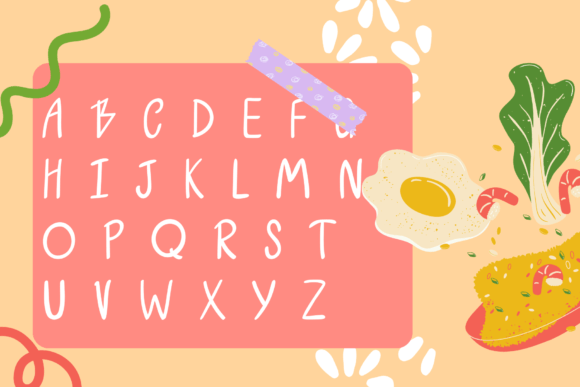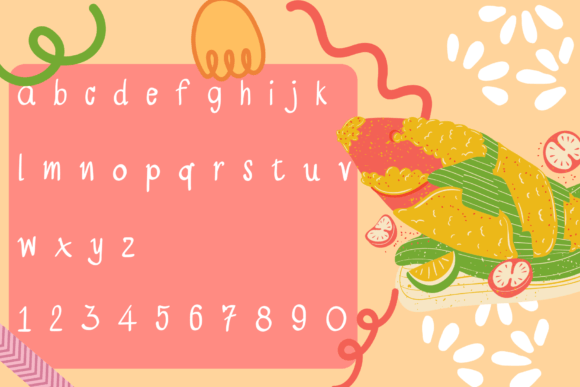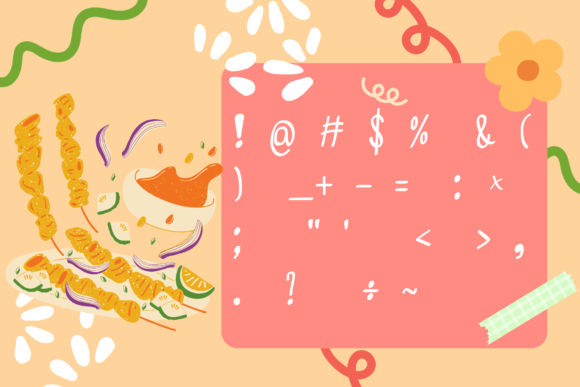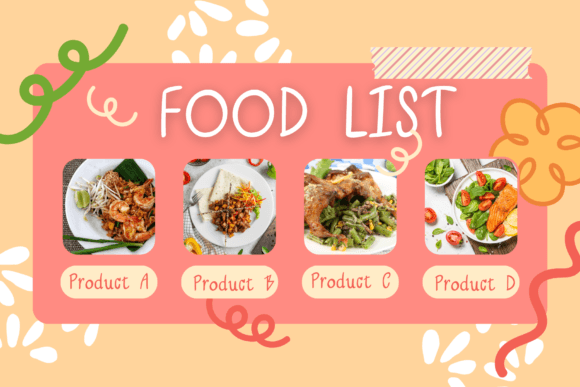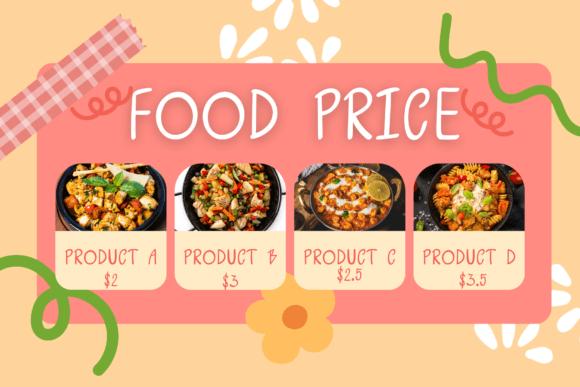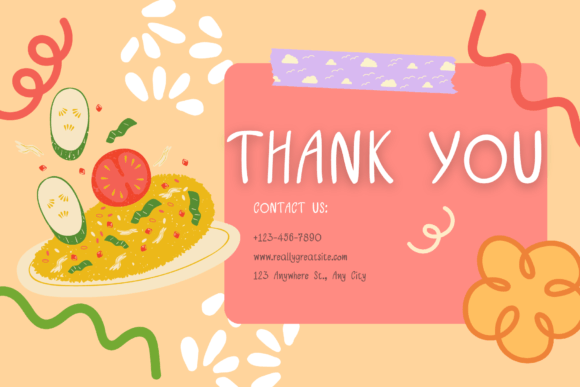
The Perfect Morning Inspiration: Uncovering the Delight of Breakfast Font
Have you ever sat down with a steaming cup of coffee, feeling the warmth of the morning sun, and let your imagination run wild? For designers, this moment of serenity is often the spark that ignites a creative idea. And what better way to capture that essence than with a beautiful font that exudes charm and elegance? Enter Breakfast Font, a stunning typeface that is as versatile as it is visually appealing.
Breakfast Font is more than just a pretty face – it’s a valuable tool for designers looking to add a personal touch to their work. Whether it’s a wedding invitation, a heartfelt thank you note, or a social media post, this font is sure to make a lasting impression. Its handwritten form is both elegant and easy on the eyes, making it perfect for a wide range of applications.
Breakfast Font Key Features
- Font Family: A sans-serif font designed for informal and casual settings, ideal for titles and headings in digital media.
- Character Count: The font contains a standard set of characters, including uppercase and lowercase letters, numbers, and punctuation marks.
- Unique Characteristics: Breakfast Font features a playful, cursive feel with rounded edges and a friendly, approachable tone, making it perfect for titles, headings, and short text passages.
Breakfast Font Review
I recently had the chance to work with the “Breakfast Font” and I must say it’s a unique and quirky addition to any design project. Here are my thoughts on what works well and what doesn’t.
- Unique Character: The “Breakfast Font” has a distinct, playful feel to it that’s perfect for projects that need a bit of whimsy.
- High-Quality Renditions: The font is well-crafted and comes in a variety of styles, from casual to formal.
- Wide Character Set: It includes a wide range of characters, including punctuation and special symbols, making it suitable for a variety of applications.
- Limited Font Sizes: The font may not be ideal for large or small font sizes, as the design can become distorted.
- Some Characters are Ambiguous: A few characters, like the lowercase ‘l’ and ‘1’, can be easily confused with one another.
Overall, the “Breakfast Font” is a fun and creative option for designers looking to add some personality to their work. While it may have some limitations, its unique charm makes it worth considering for the right project.
Breakfast Font is perfect for:
- Food blogs and recipes
- Cafe and restaurant menus
- Food-themed events and parties
Use Breakfast Font to add a playful touch to your designs, and don’t be afraid to experiment with different font sizes and colors to create a unique look.